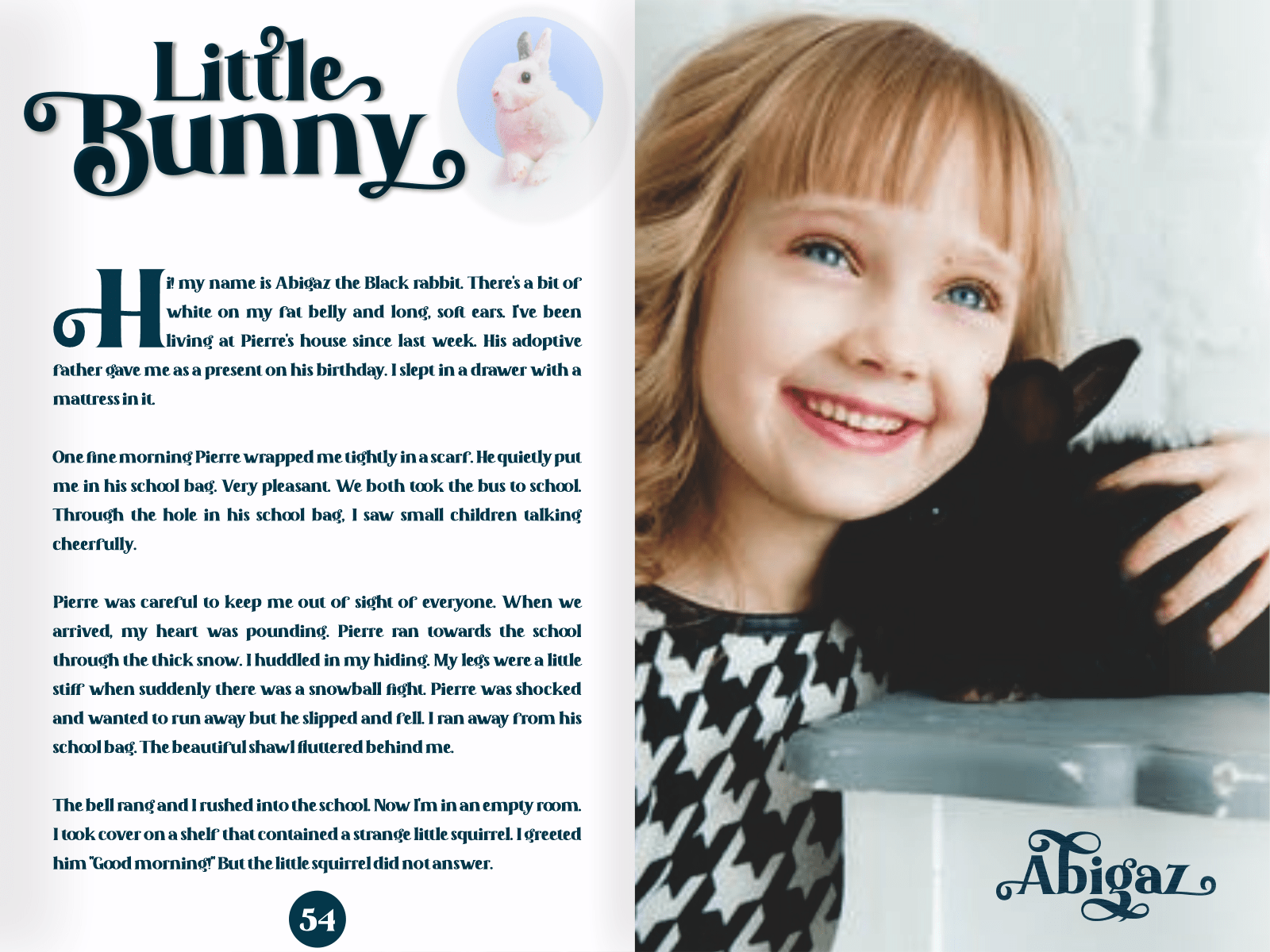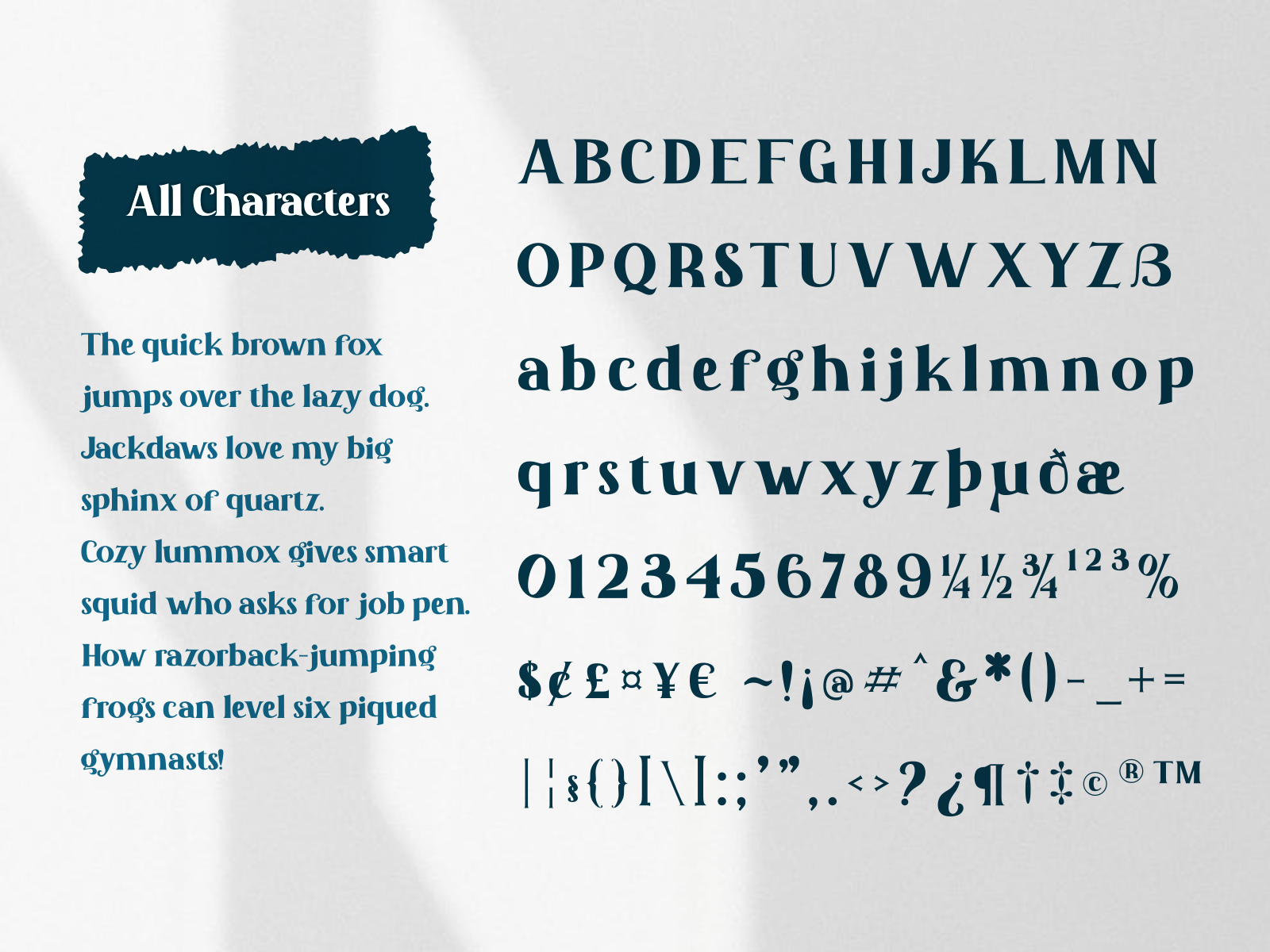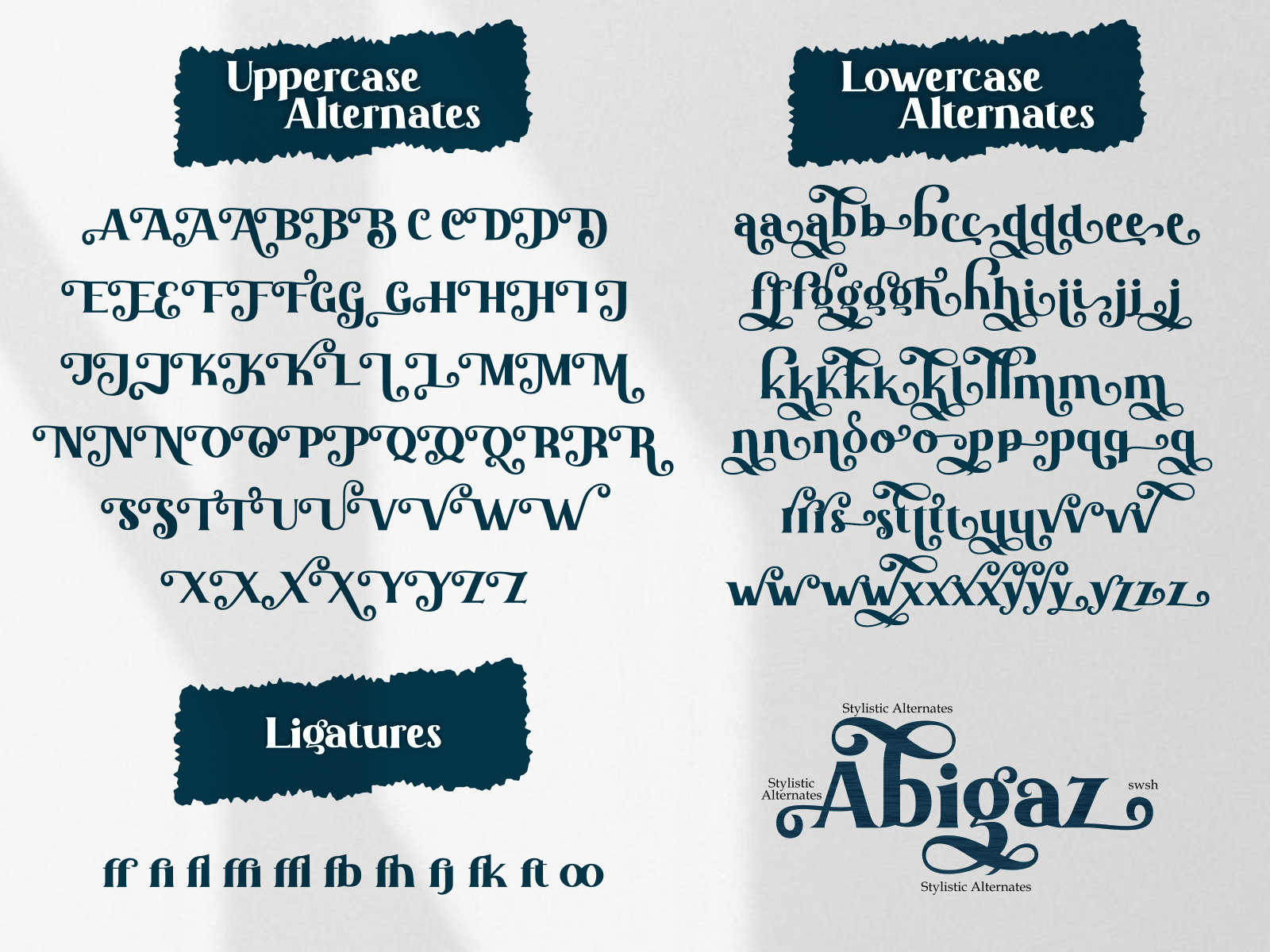
Abigaz Serif Font
It’s a chic and trendy serif font. This font is imposing and features uniquely shaped letters, and as a result, it will easily match a wide range of creations that require a distinct touch.